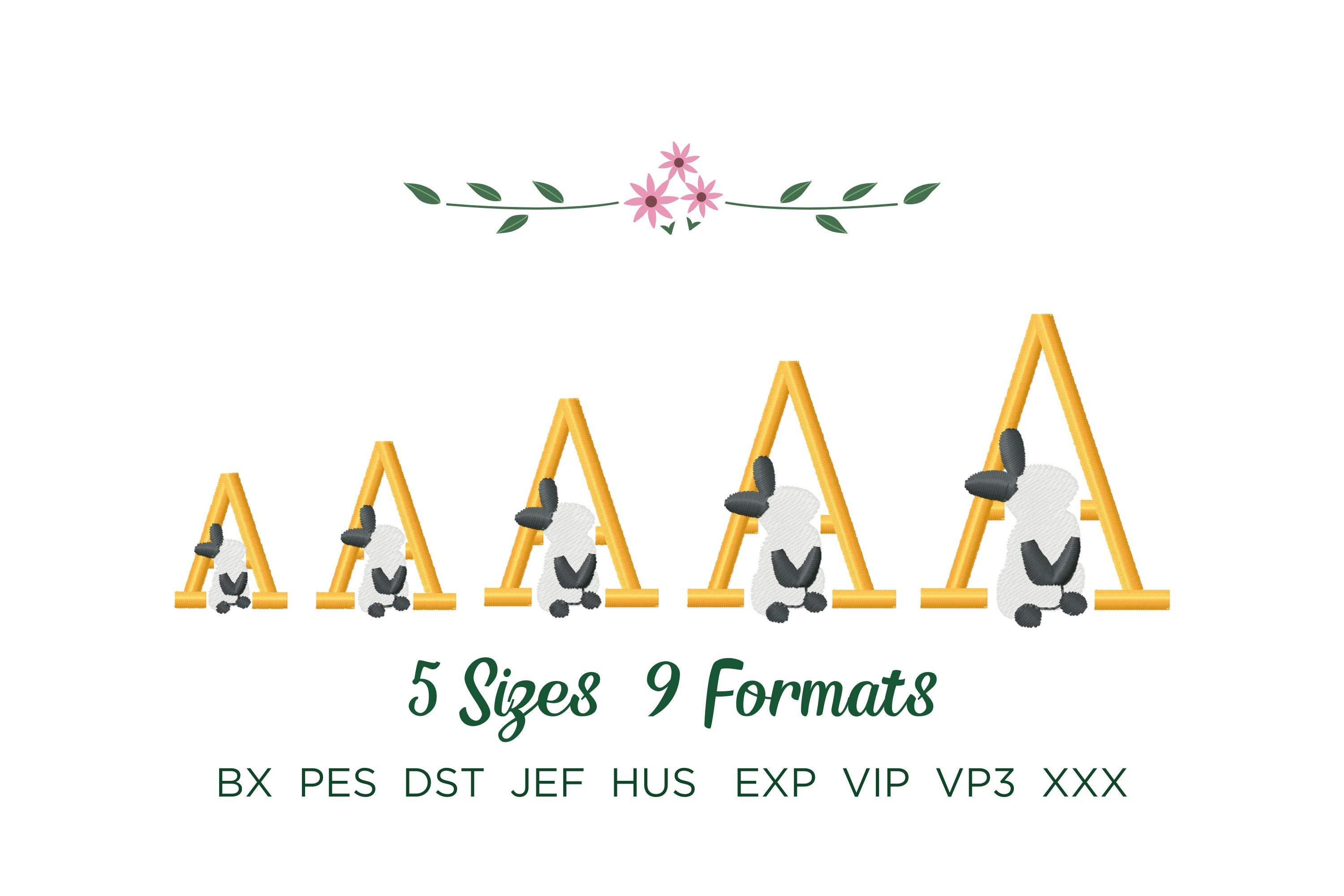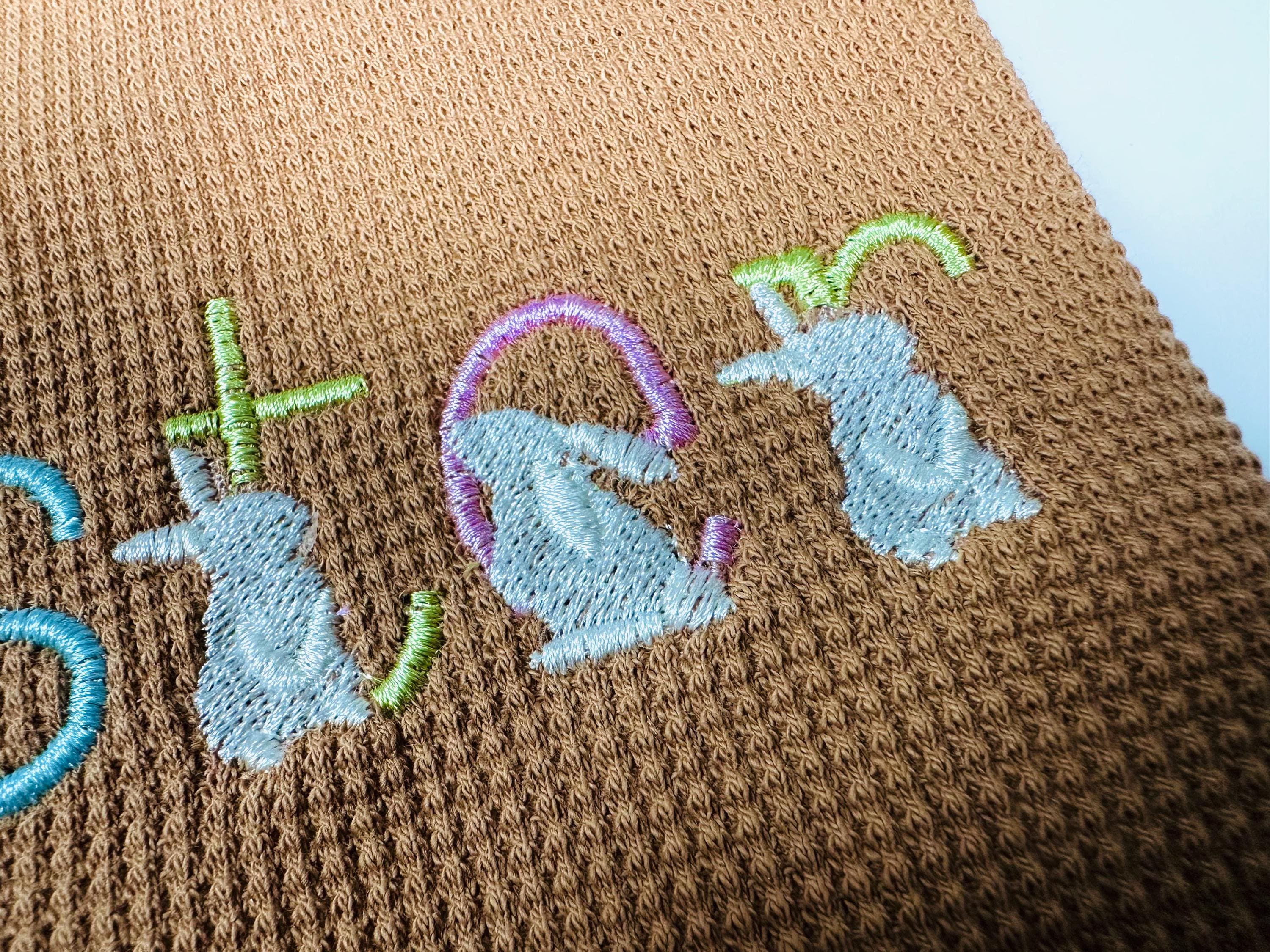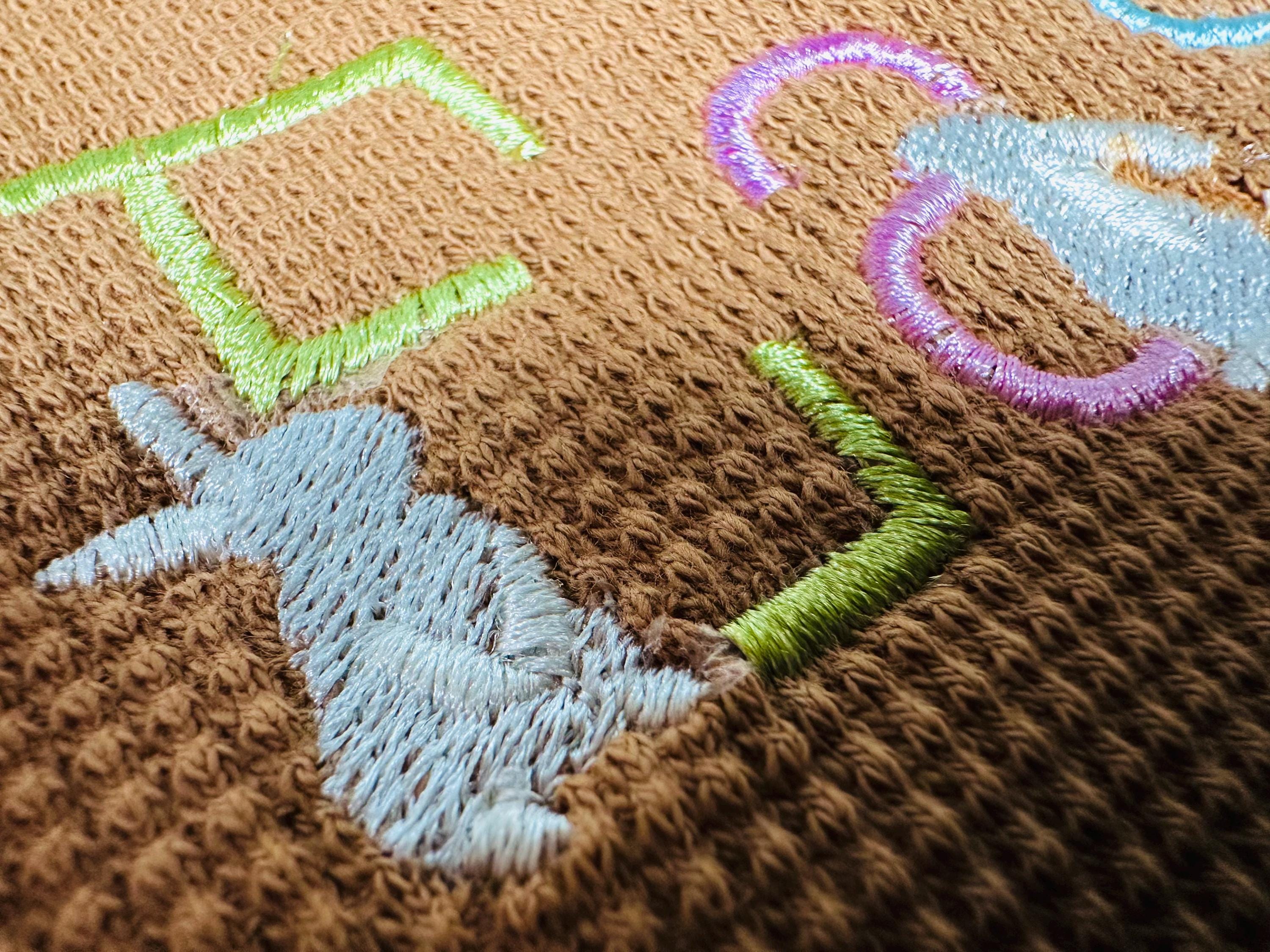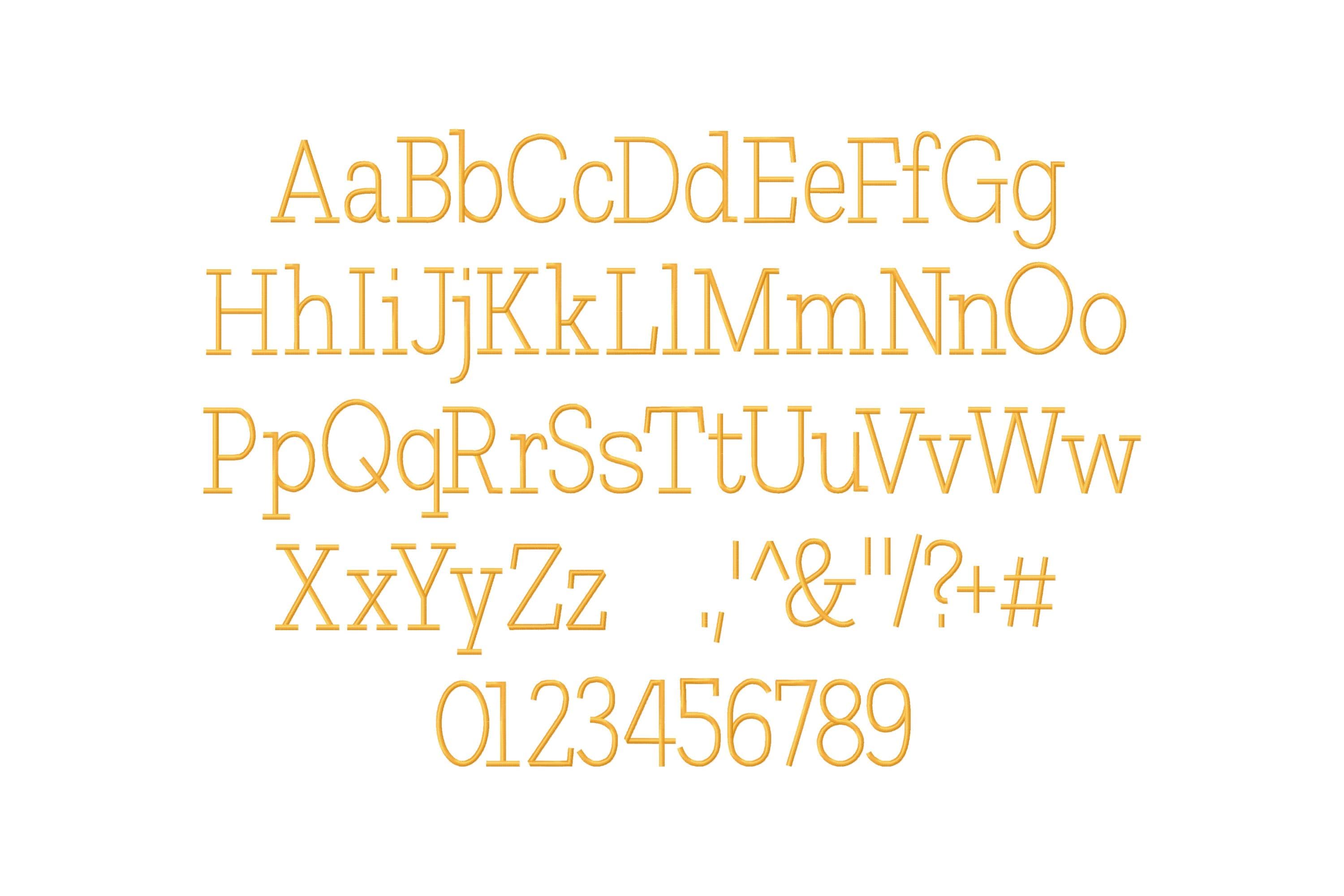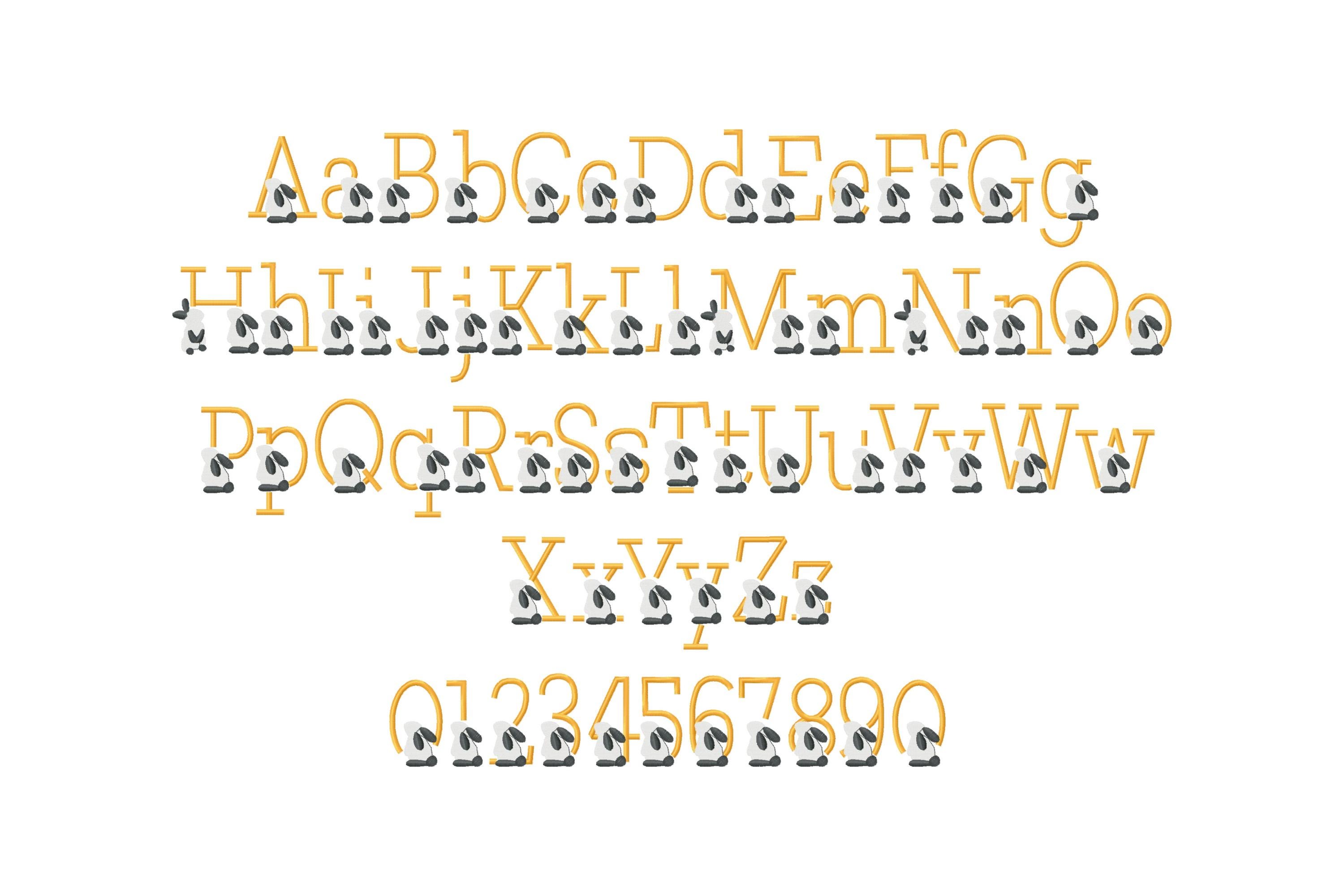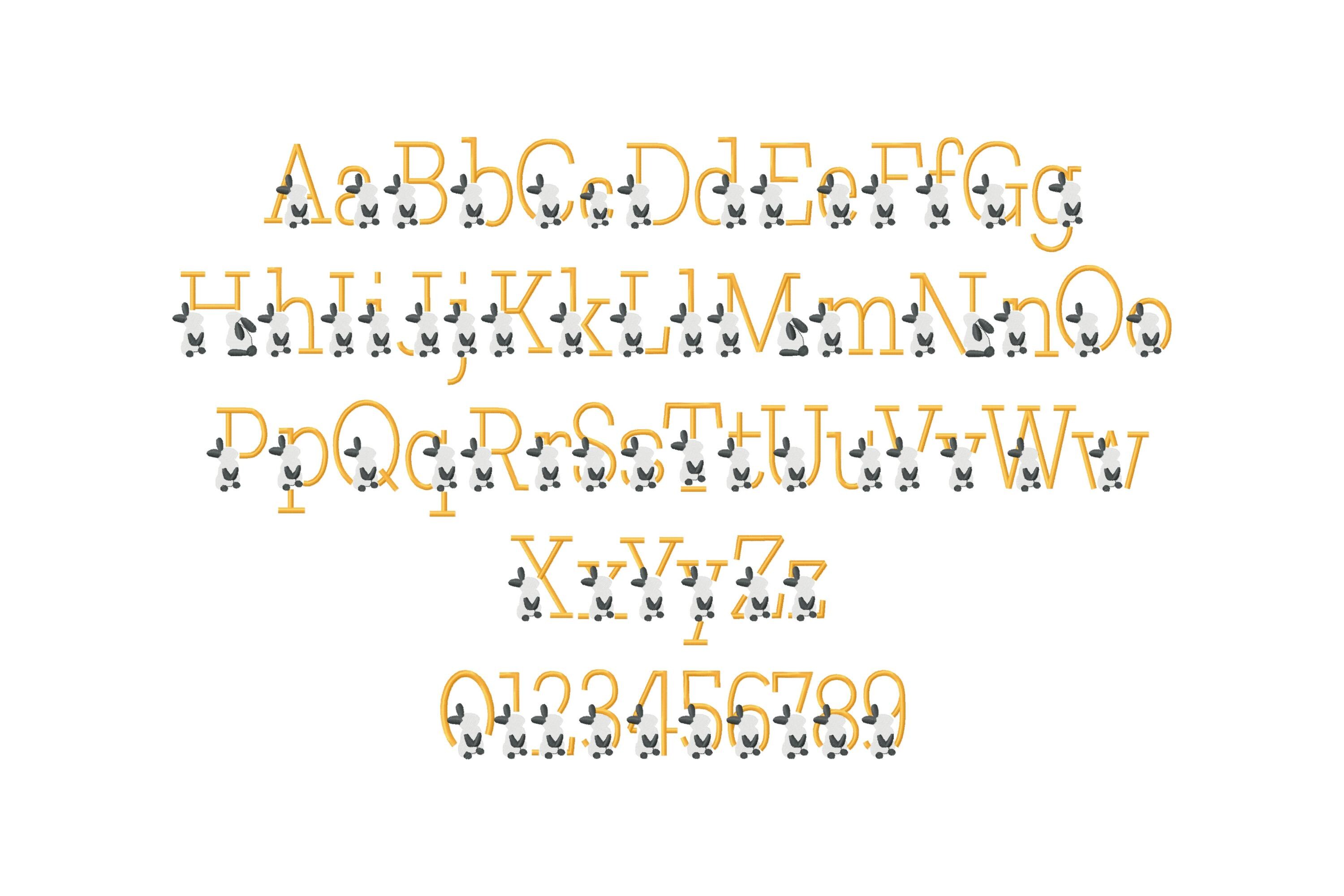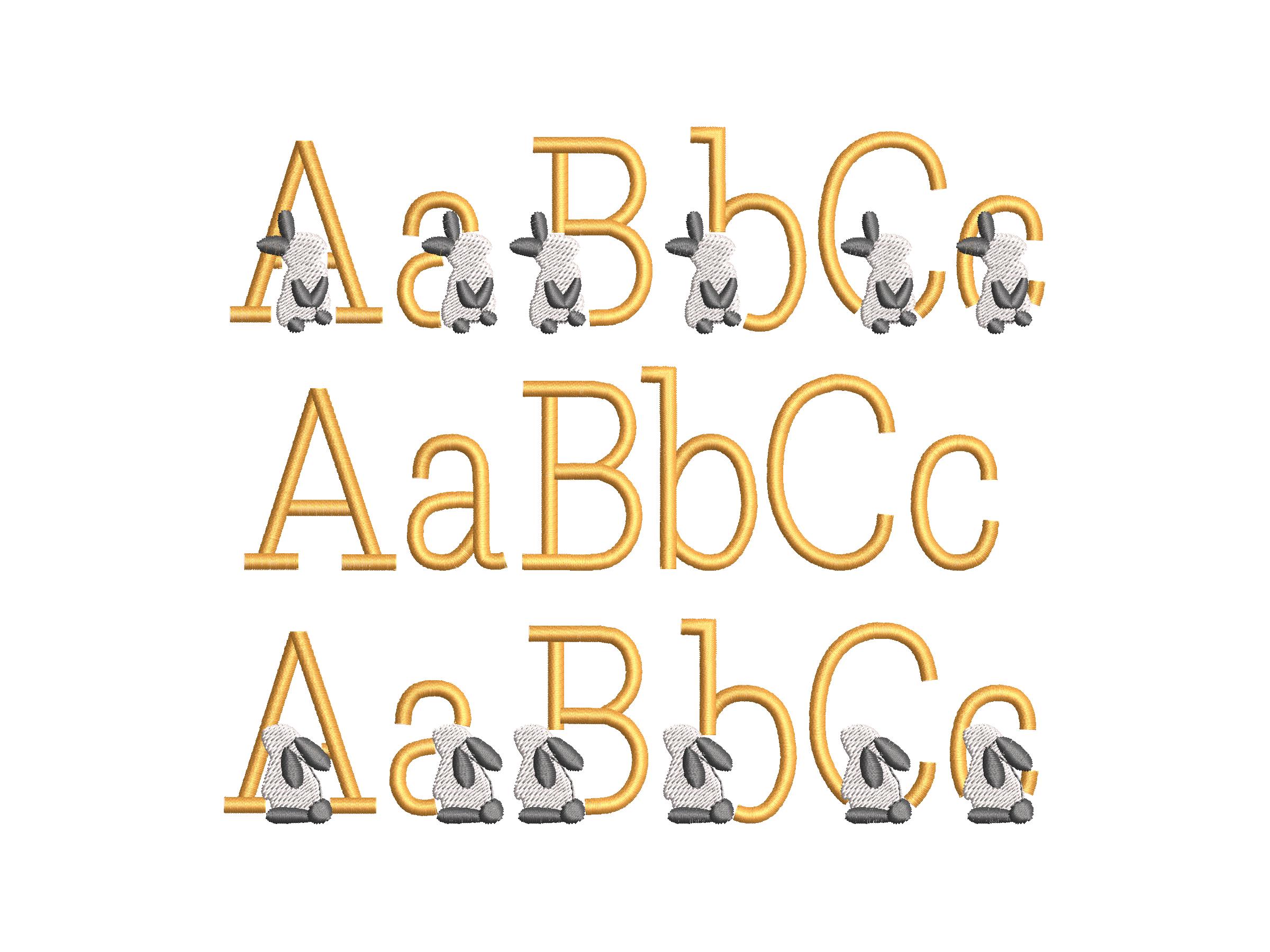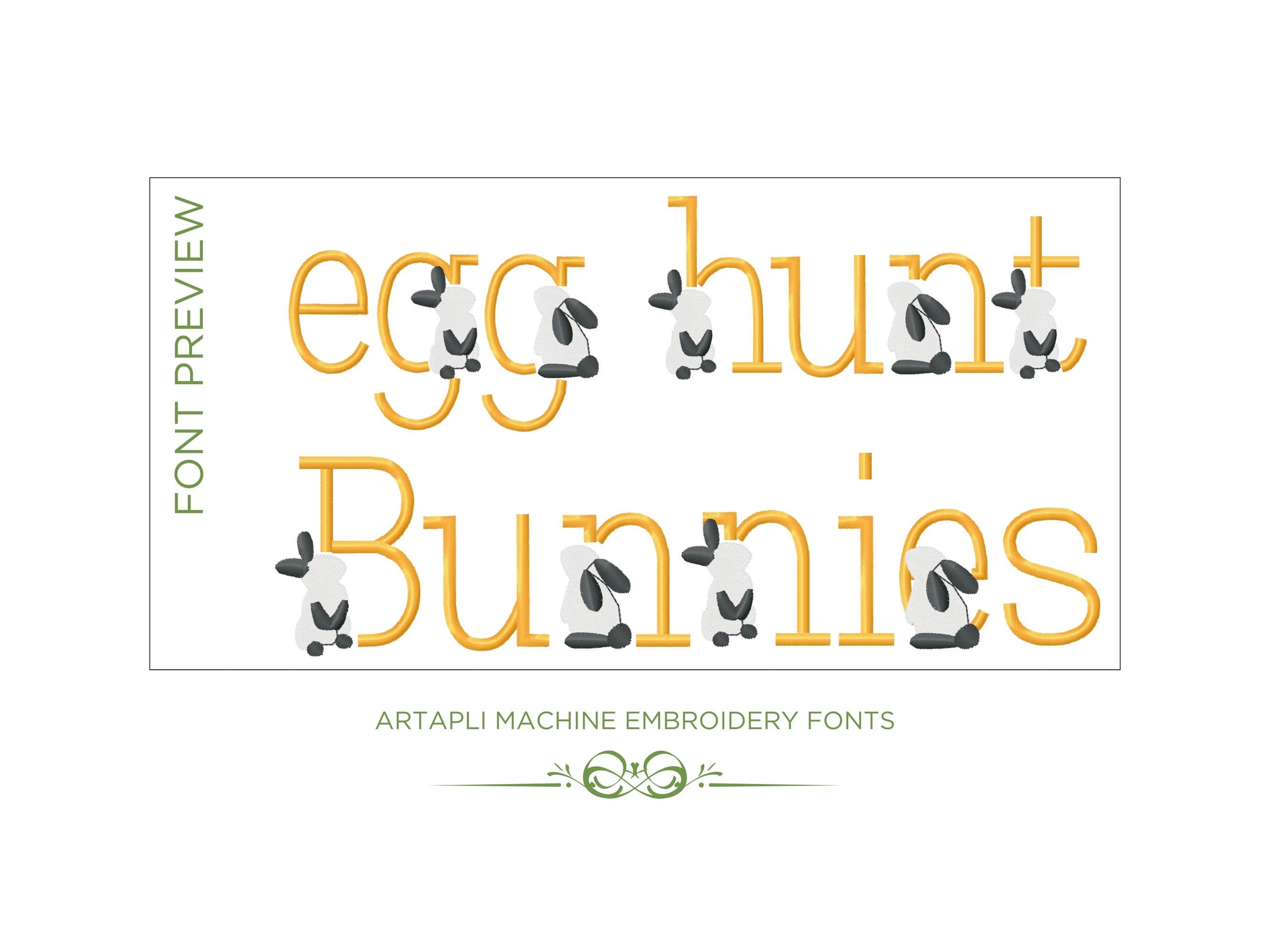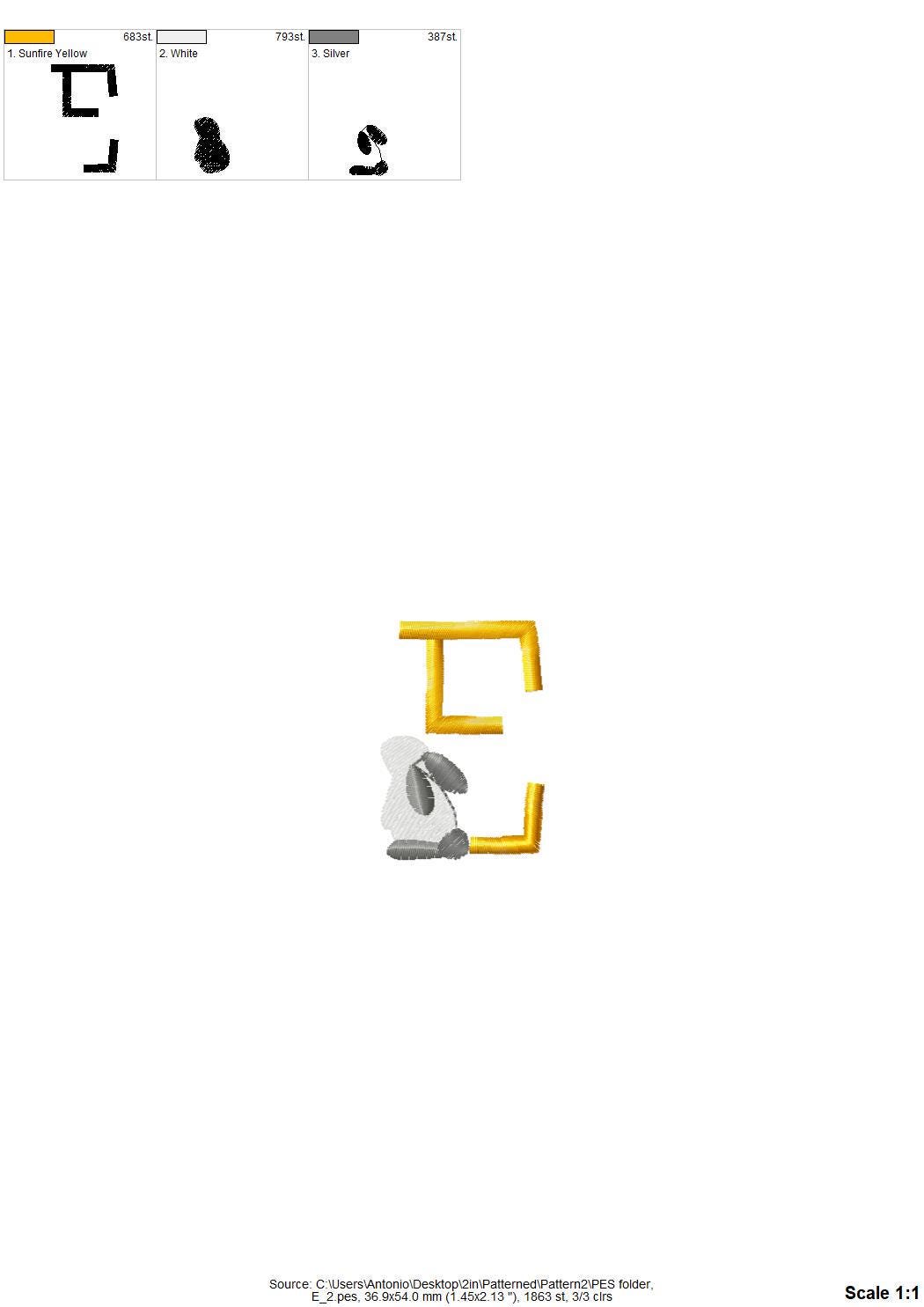
Satin stitch Bunny Font SET of 3 fonts Easter Bunny alphabet machine embroidery designs kids baby pretty monogram sizes 1 up to 2.4 inch BX
Included are 3 fonts:
* Blank satin stitch font
* Satin stitch font with a bunny facing forward
* Satin stitch font with a bunny facing backward
Entire alphabet uppercase and lowercase letters Aa-Zz, numbers 0-9, and punctuation.